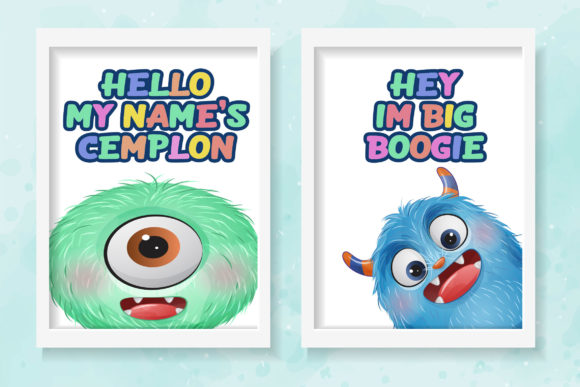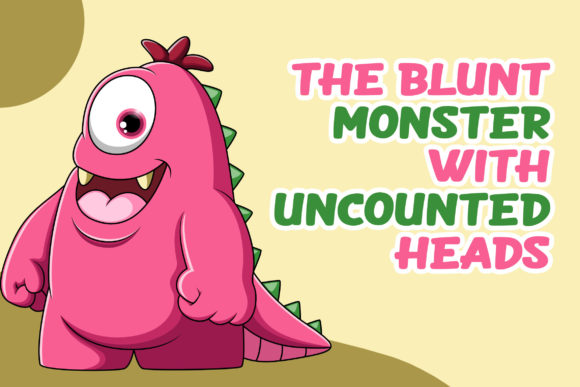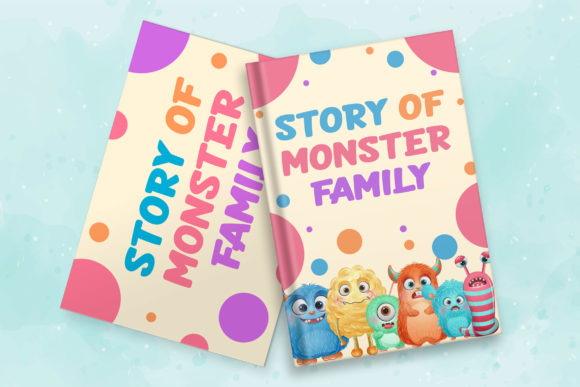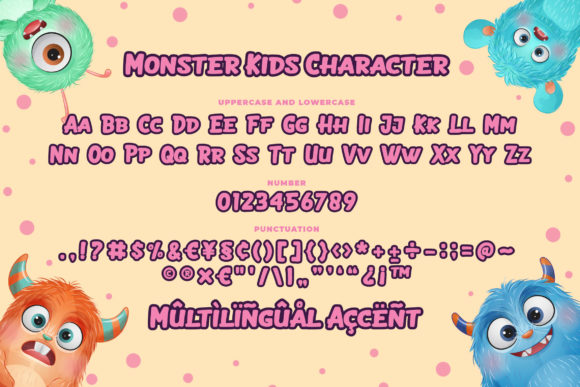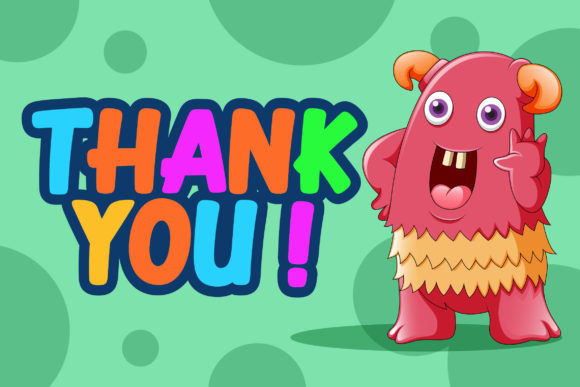
Introduction to Monster Kids Font
Monster Kids is a cute, paint brushed display font.
When matched with bright colors, it is ideal for children designs pr school projects The only limit is your imagination.
Key Features of Monster Kids Font
Why Choose Monster Kids Font?